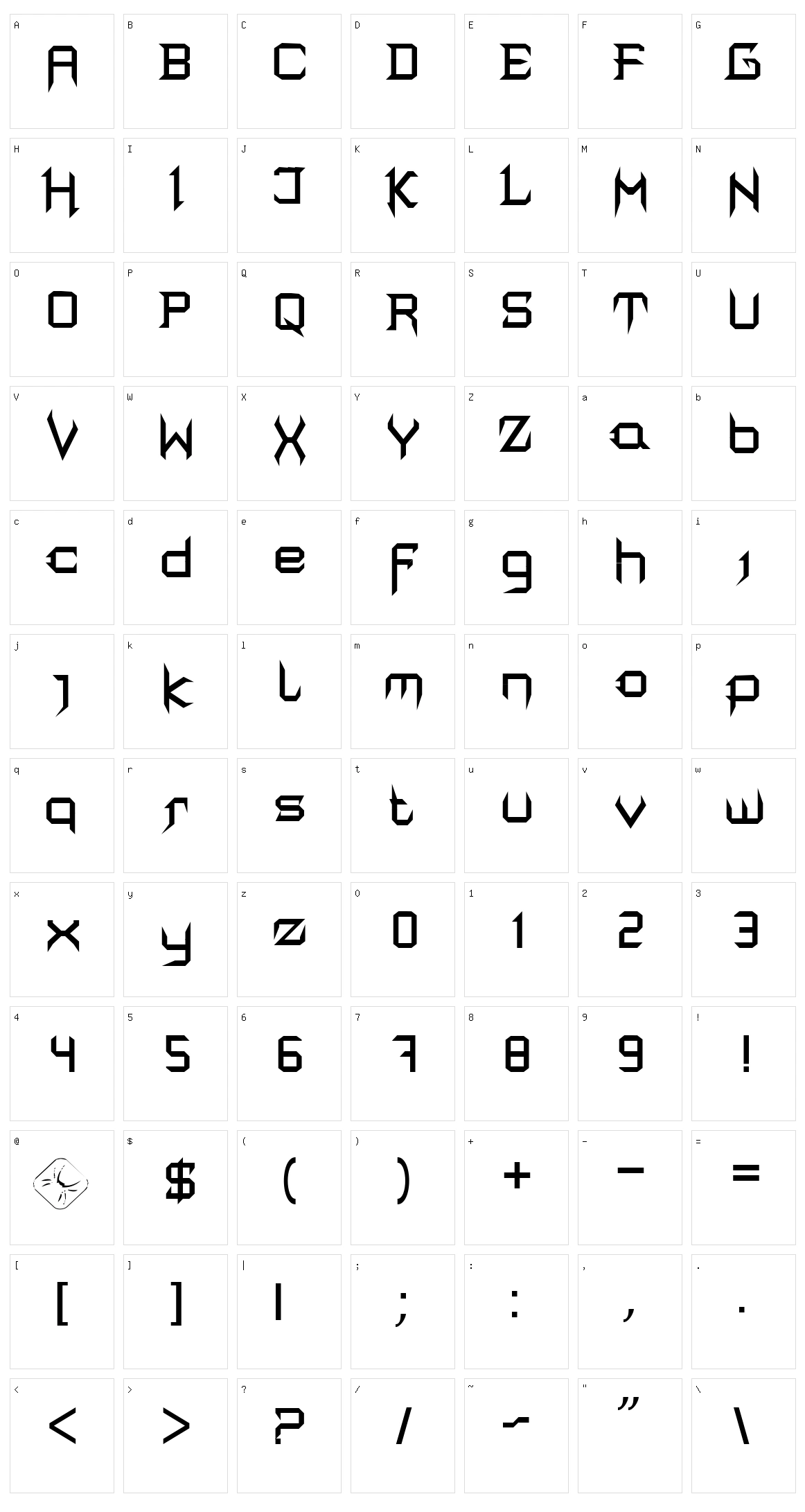
Mortis
Designed by: Atrax
font zawiera du¿e i ma³e litery oraz niektóre znaki interpunkcyjne.
The font Mortis that was designed by me,
contains large & small letters, digits
and some punctuations.